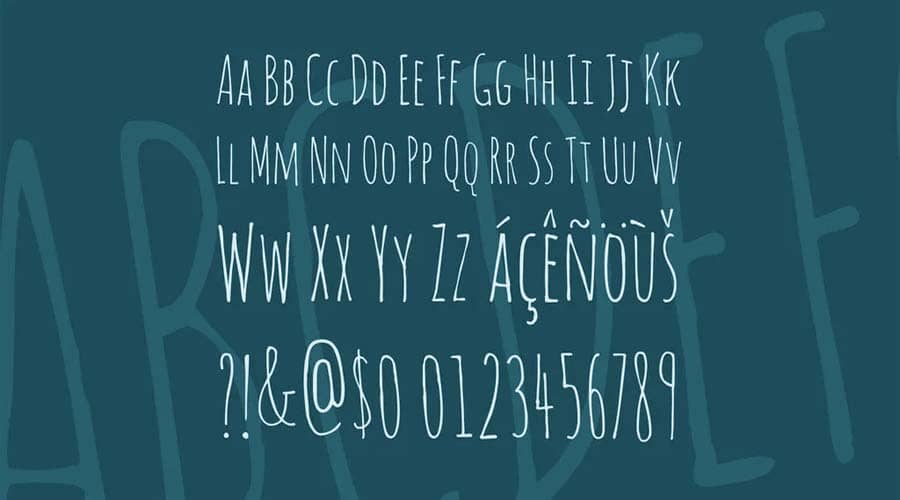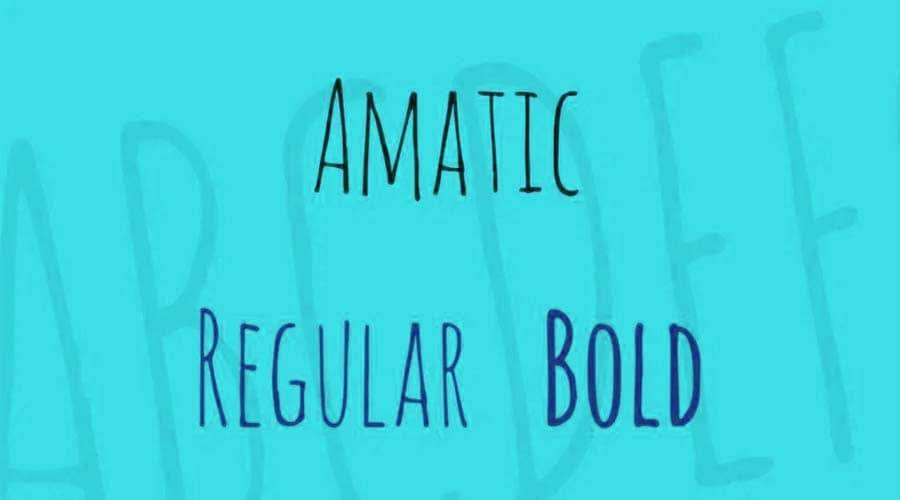
Amatic Font
Amatic Font is the most recent Script font. Vernon Adams created and released the Font on January 1, 2021.
Amatic Script Font is a straightforward but successful hand-drawn web font. Amatic can be used for text and titling. Amatic was created to be freely accessible through the internet by web browsers on desktop computers, laptop computers, and mobile devices. The Font contains both the Latin and Hebrew alphabets. The Font is free to use for non-commercial purposes. One of the primary motivations for creating this Font was to achieve a solid and coherent texture.
Amatic Font is suitable for a wide range of applications, including sports, songwriting, festivals, commute, youtube vlogs, brand identity, and many more. Furthermore, the lovely Script and brush fonts are frequently used to create logos for t-shirts. It also looks stunning in all colour combinations. The Font is also get used in a different type of wallpaper making.